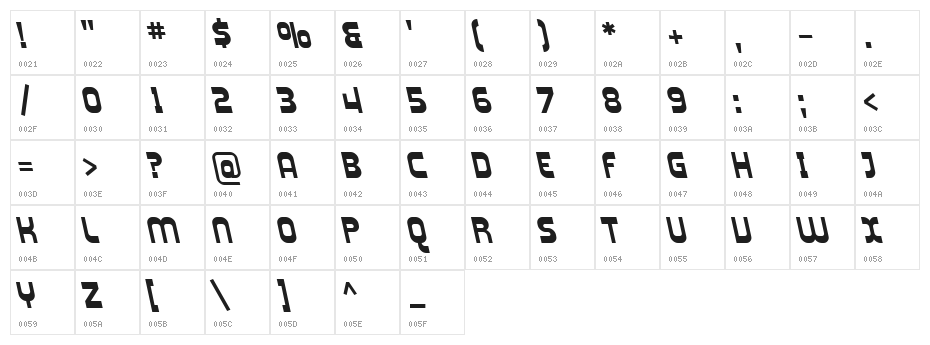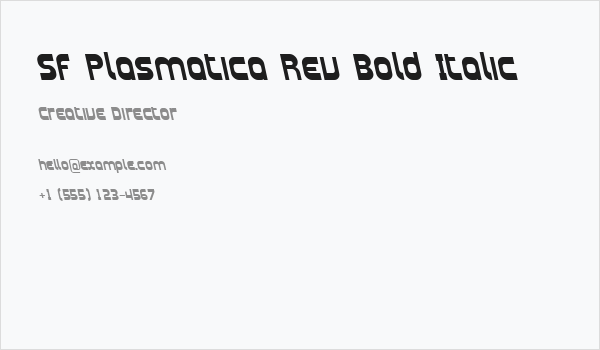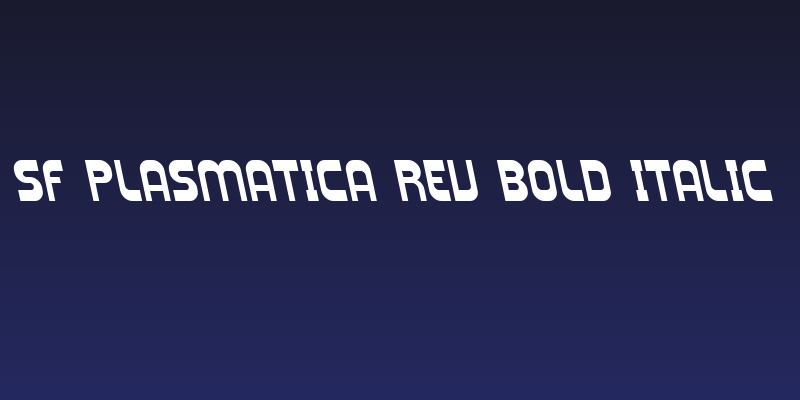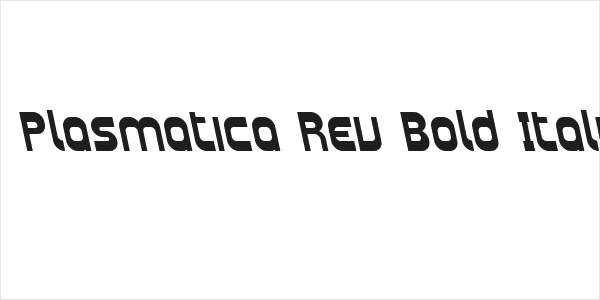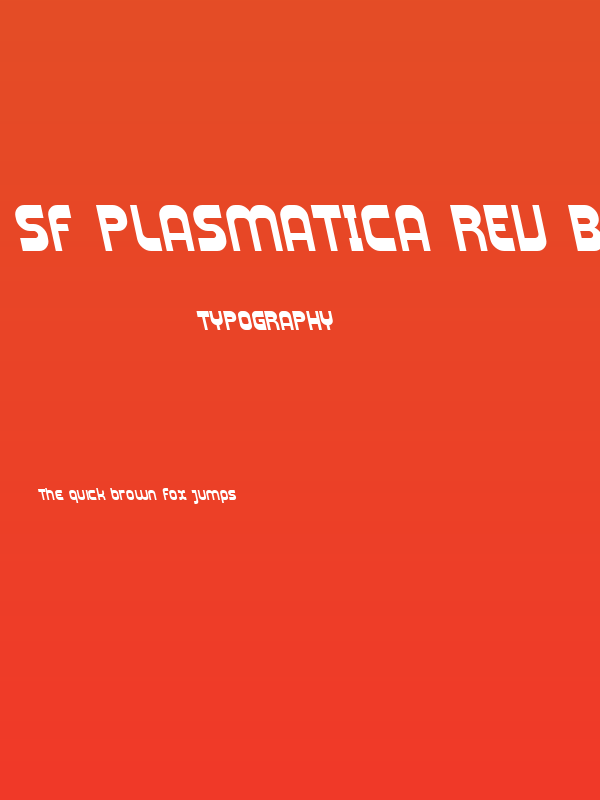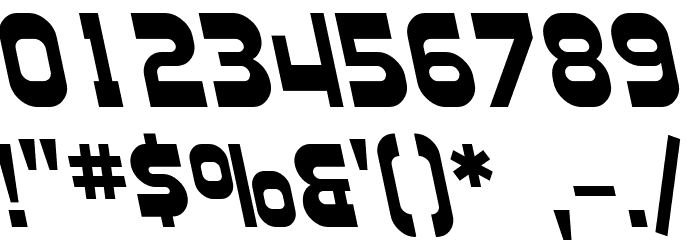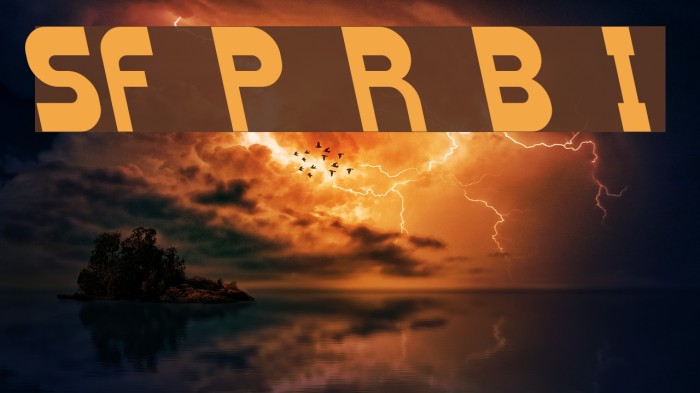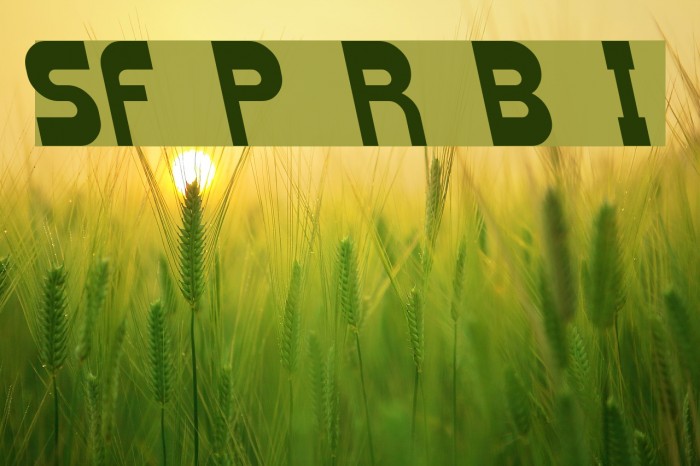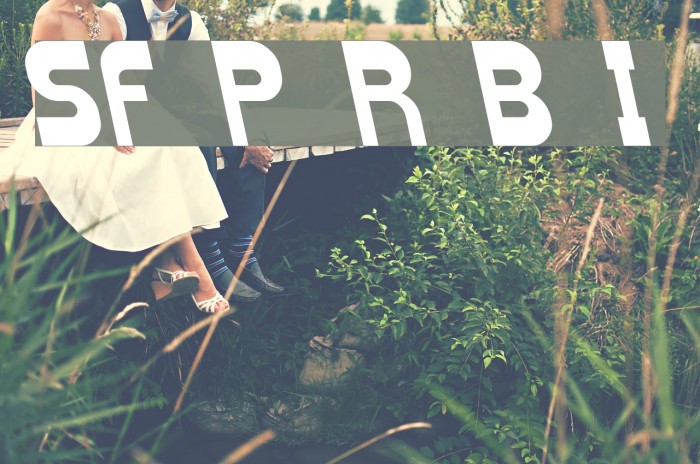
SF Plasmatica Rev Bold Italic Font
SF Plasmatica Rev Bold Italic Description
This font features a bold and italicized style with a futuristic and geometric design. The characters are constructed with sharp angles and clean lines, giving it a modern and dynamic appearance. The uppercase and lowercase letters maintain a consistent style, with a slight slant that adds to the italic effect. The numerals and special characters are designed to match the overall aesthetic, providing a cohesive look across all elements. The font's bold weight ensures strong visibility and impact, making it suitable for attention-grabbing designs.
| Proposed Projects | Ideal for sci-fi themed projects, technology branding, video game titles, and modern poster designs. |